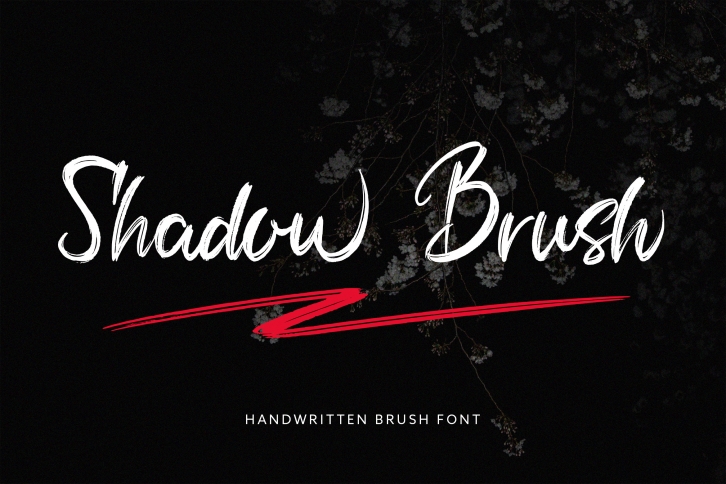
Shadow Brush is a gorgeous font that was realeased on August 13, 2019. The font can be used in many style contexts and design environments. Perfect for invitations, magazines, websites, logos, and more! It was designed by JunCreative and the file size is 9.71 MB. Thanks for checking out this font!